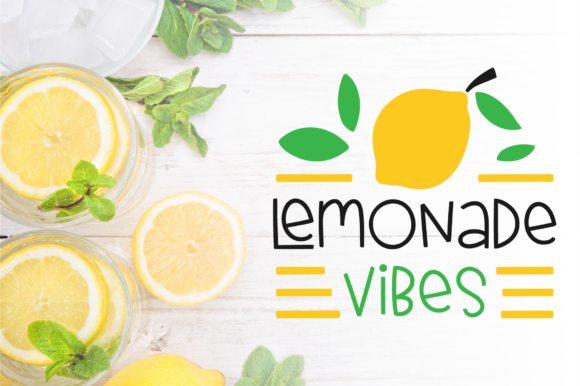
Introduction to Lemonade Stand Font
The Lemonade Stand is a fun script font.
It has a child like feel which makes it perfect to add a playful touch to your designs .
Why Choose Lemonade Stand Font?
Lemonade Stand Font offers exceptional quality and versatility, making it a valuable addition to your design toolkit. Whether you’re creating for personal projects or commercial use, Lemonade Stand Font delivers professional results.